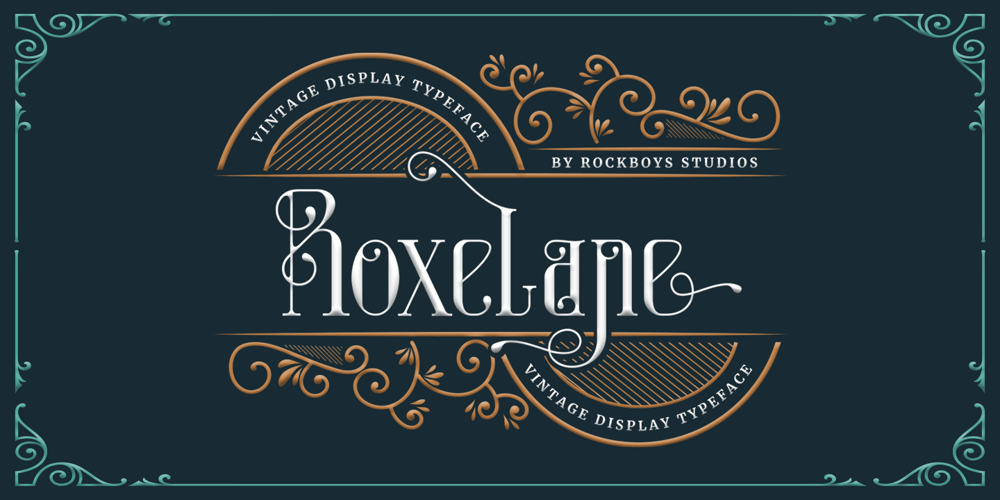
Roxelane
Roxelane font
Roxelane Font Family was designed by Hayinah and published by Rockboys Studio. Roxelane contains 1 styles and family package options. Roxelane is a friendly display font with a unique style. Get creative with this font and use it to brighten up any of your projects.This font is PUA encoded which means you can access all of the glyphs and swashes with ease! It features a varying baseline, smooth lines, gorgeous glyphs and stunning alternates.